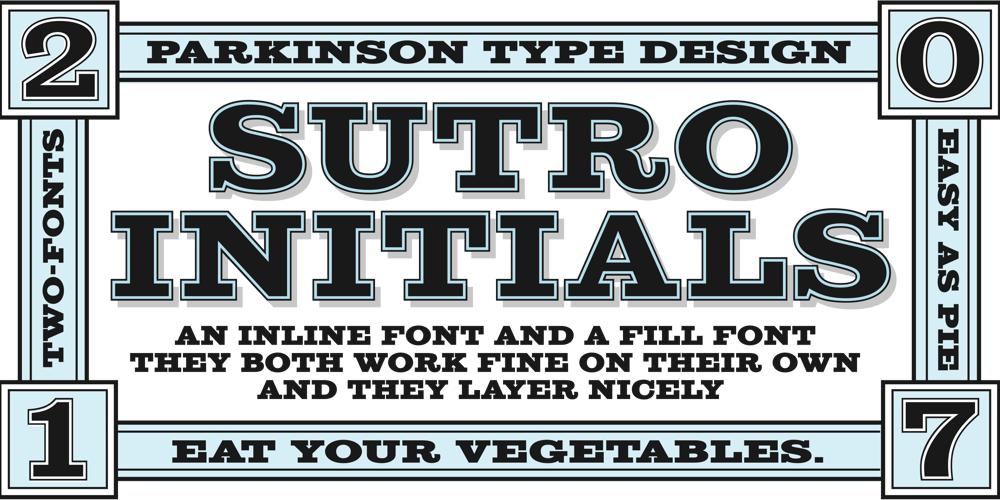
Sutro Initials Font Family was designed by Jim Parkinson and published by Parkinson. Sutro Initials contains 2 styles and family package options. A two-font chromatic (or layered) set. The Primary font, which is the old Sutro Inlined Initials. Salvaged from the wreckage of my Type1 font library, the inlined initials have been in the shop for some repairs and detailing. I just added the fill font to support the inlined version. Each font works on it’s own but they work very well together. Caps only. Open Type.